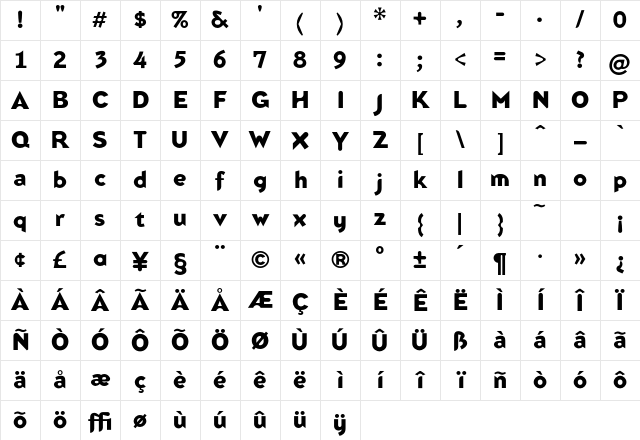
Blindfish Bold Free Font
Blindfish Bold
Blindfish Family
Blindfish Bold
Design Context for Blindfish
Blindfish is a composed and adaptable typeface that performs quietly and consistently across a wide range of design contexts. Its bold stroke weight gives it real presence on the page.